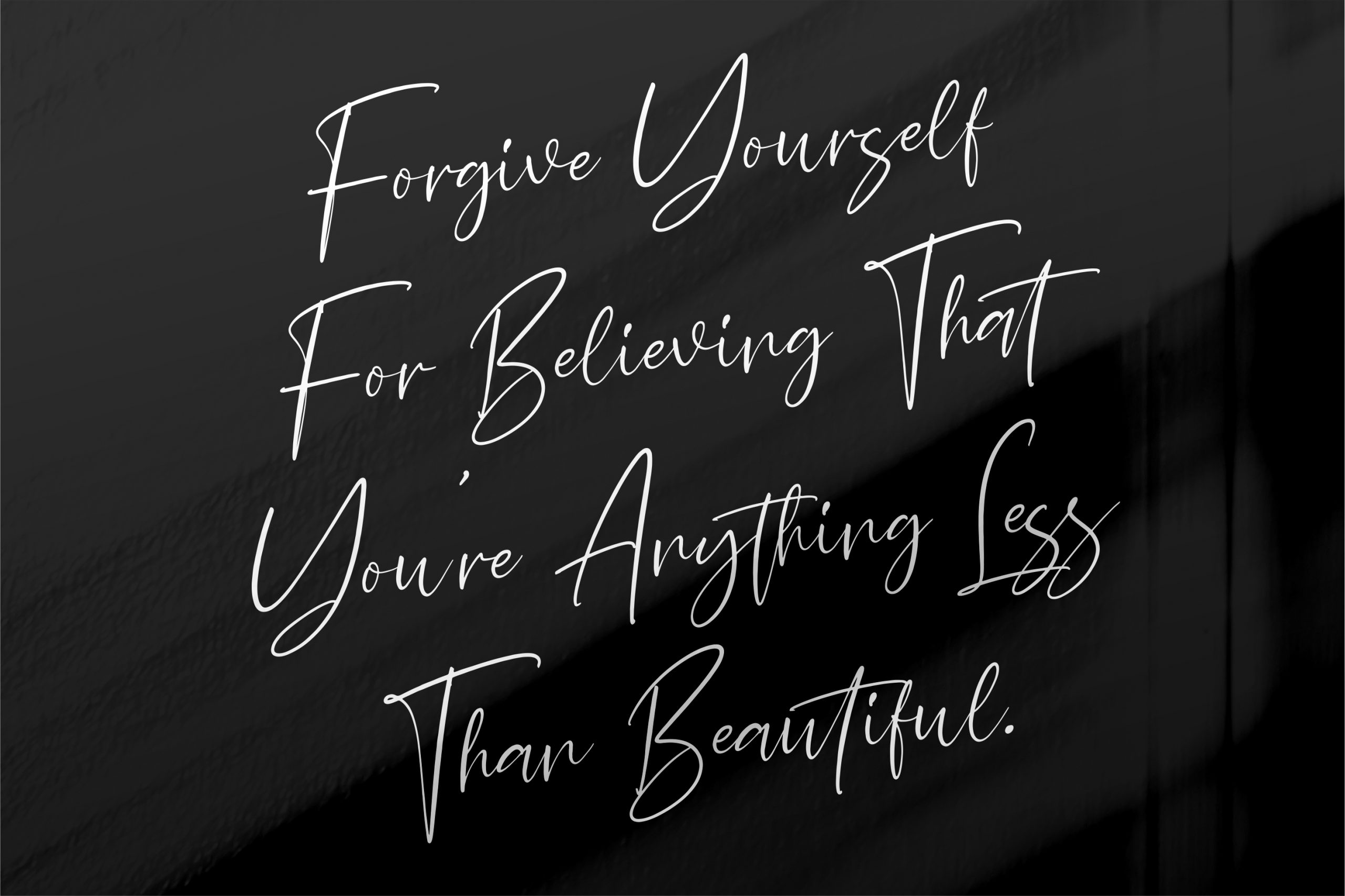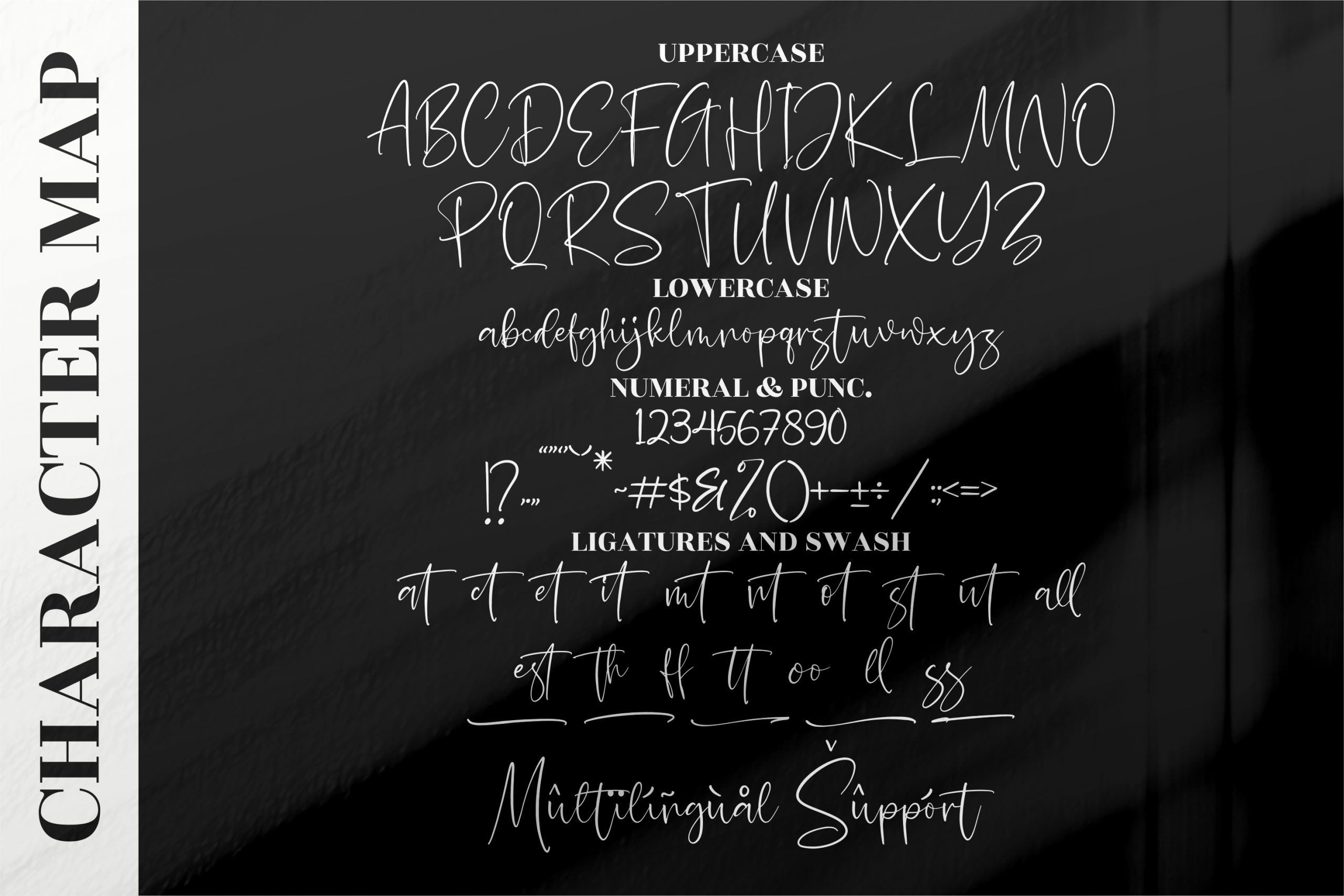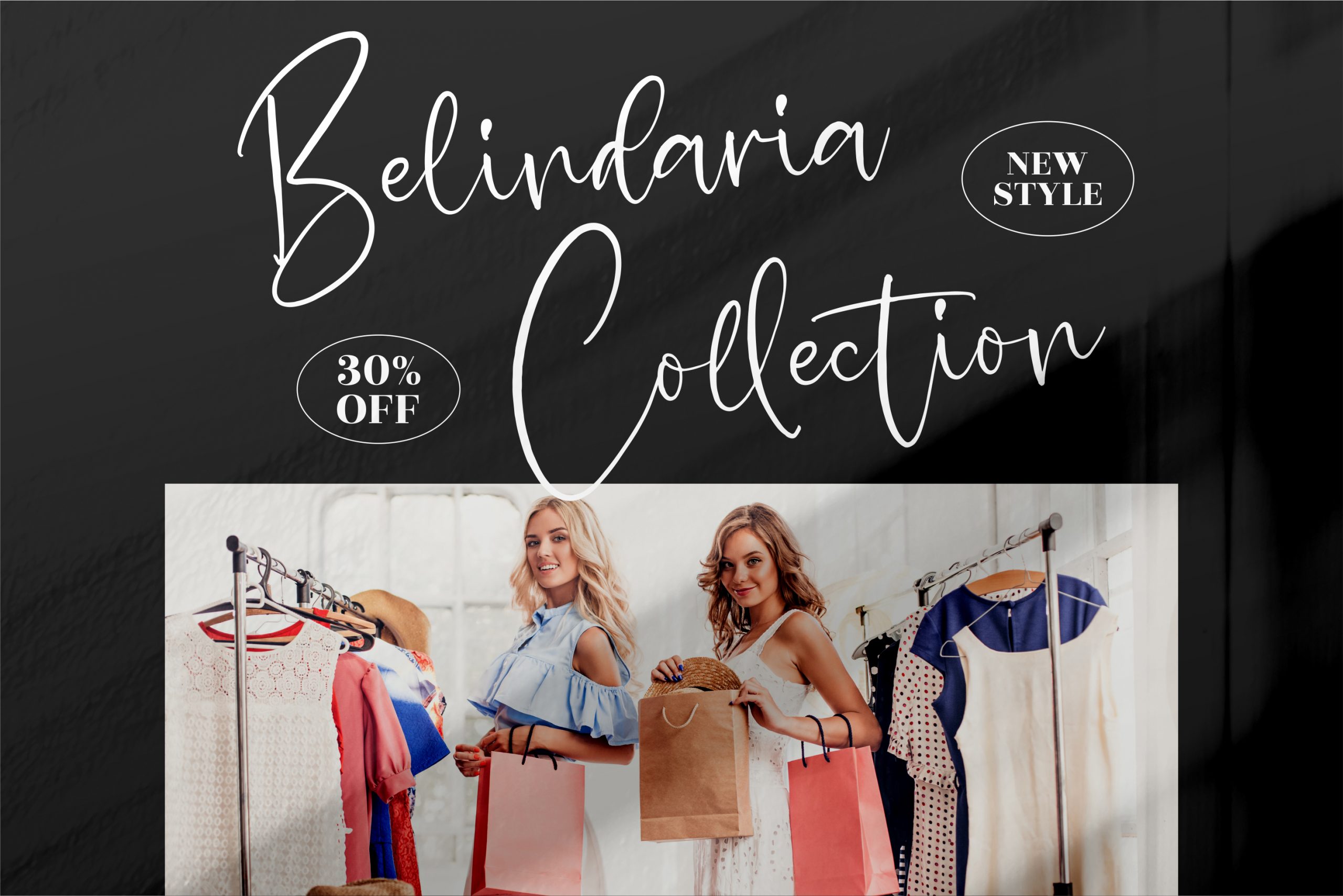
Rastedral Font
Rastedral Script Font
This is a romantic calligraphy font, suitable for any projects such as: logos, branding projects, homeware designs, product packaging, mugs, quotes, posters, shopping bags, t-shirts, book covers, name card, invitation cards, greeting cards, label, photography, watermark, special events, and all your other lovely projects that need a beautiful script taste.